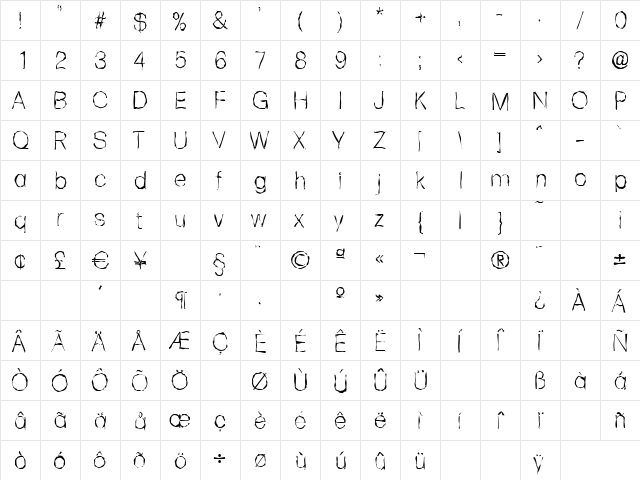
AdamBeckerRandom-Xlight Regular
Design Context for AdamBeckerRandom-Xlight Typeface
AdamBeckerRandom-Xlight takes a measured approach to typography — its balanced proportions and neutral character make it a reliable workhorse for both digital and print work. The delicate stroke weight brings airiness and refinement to layouts.